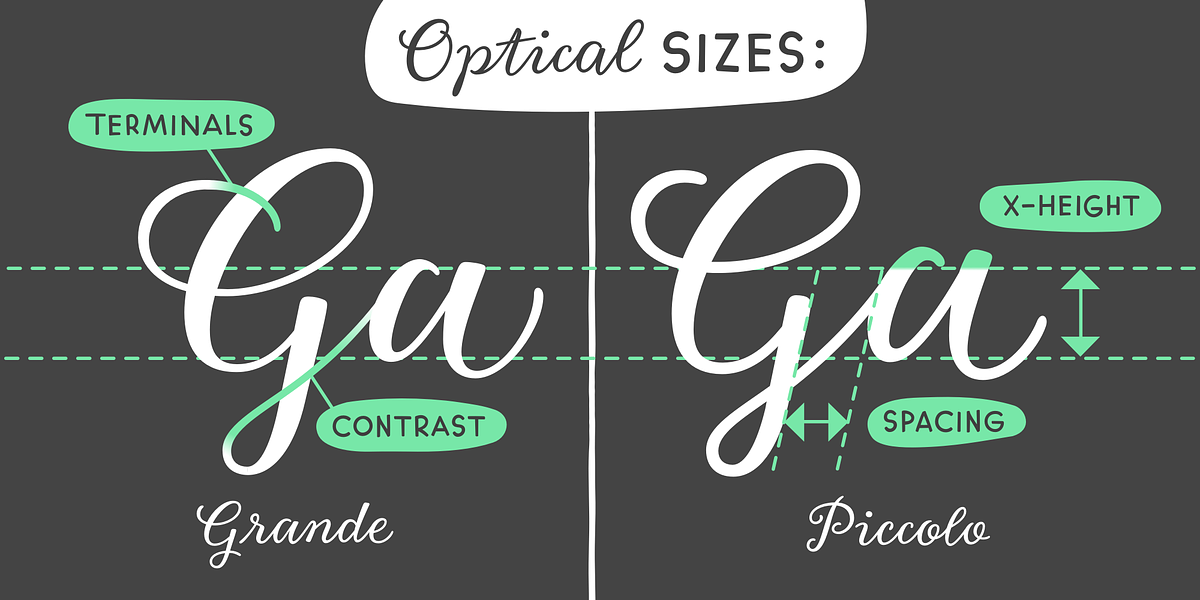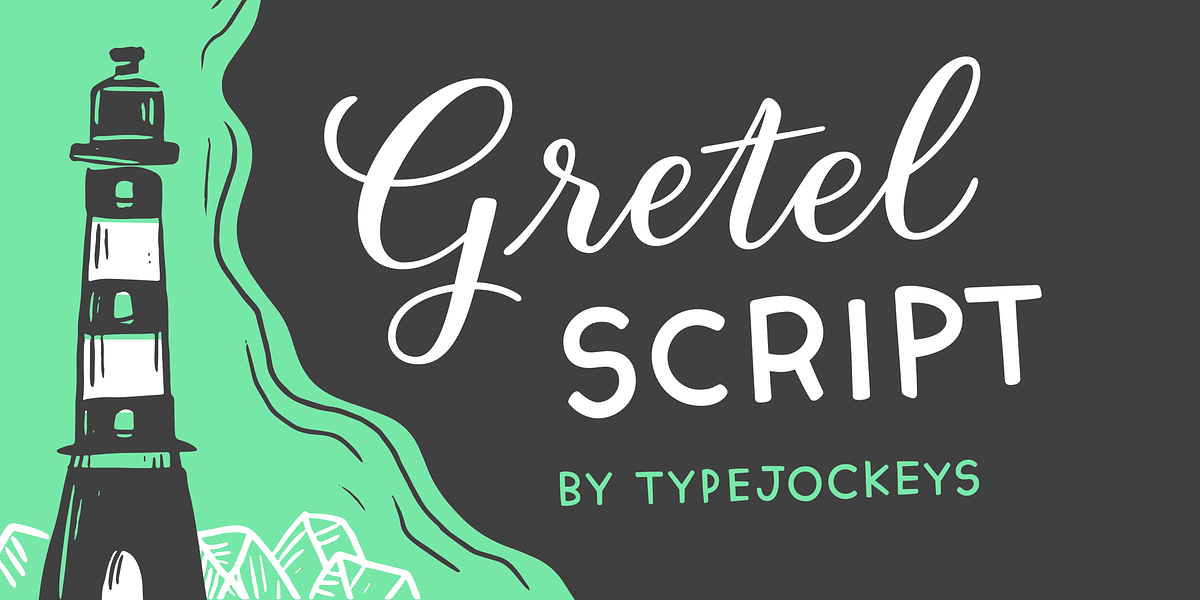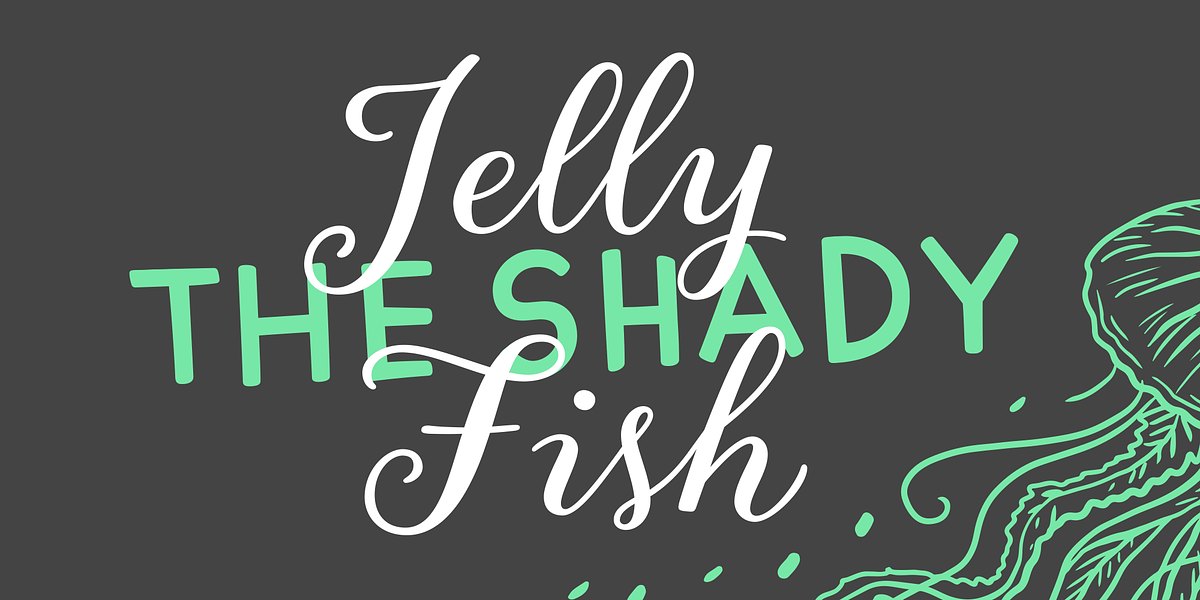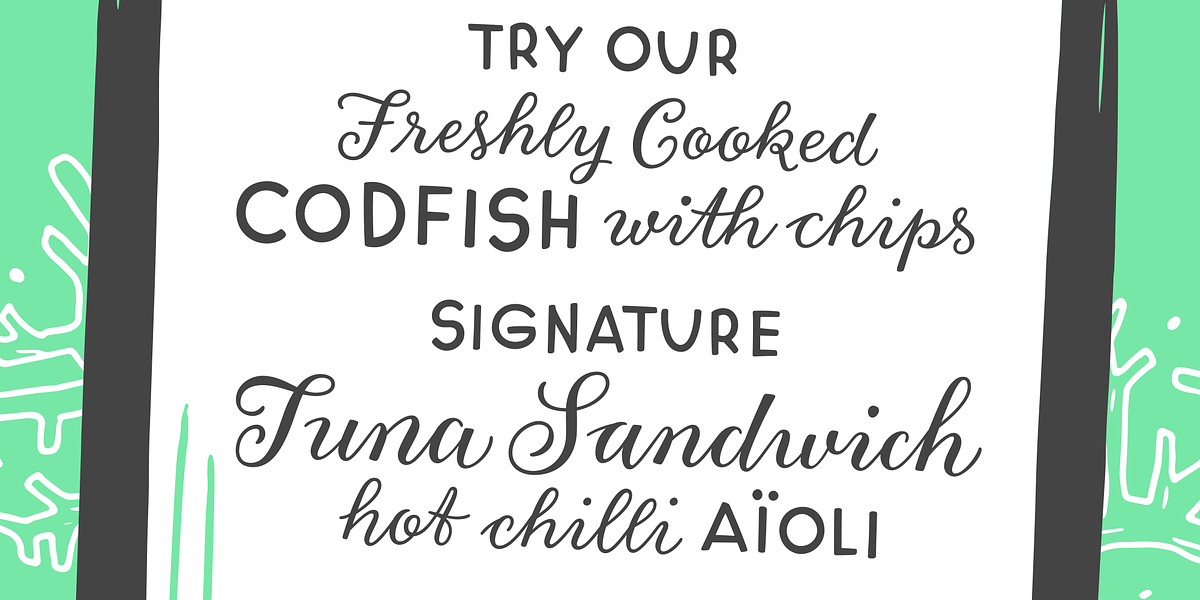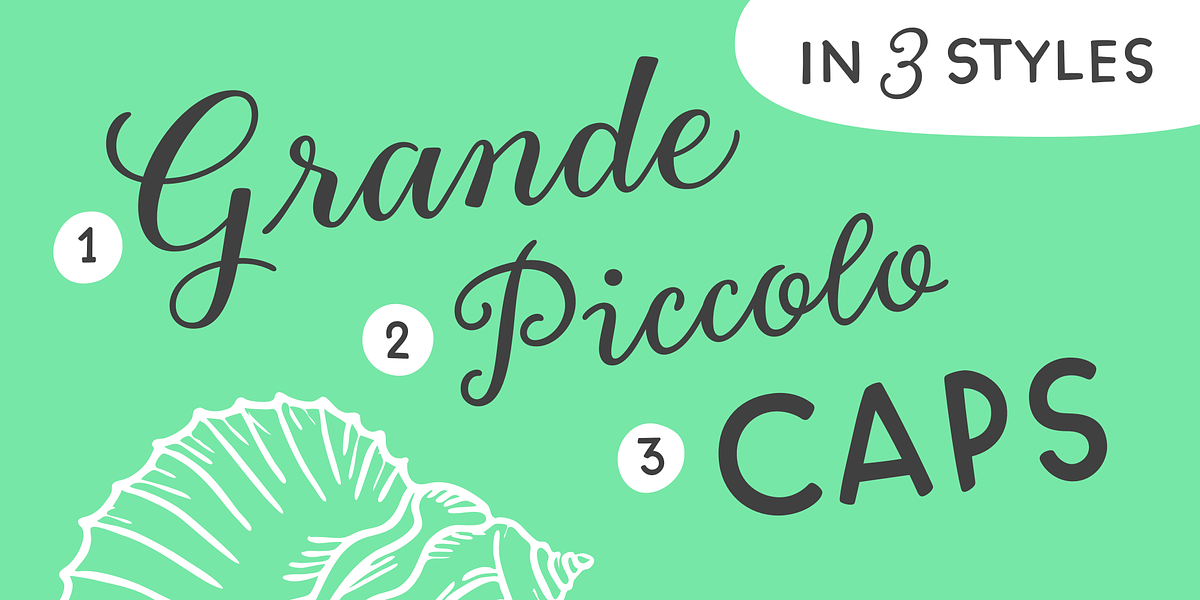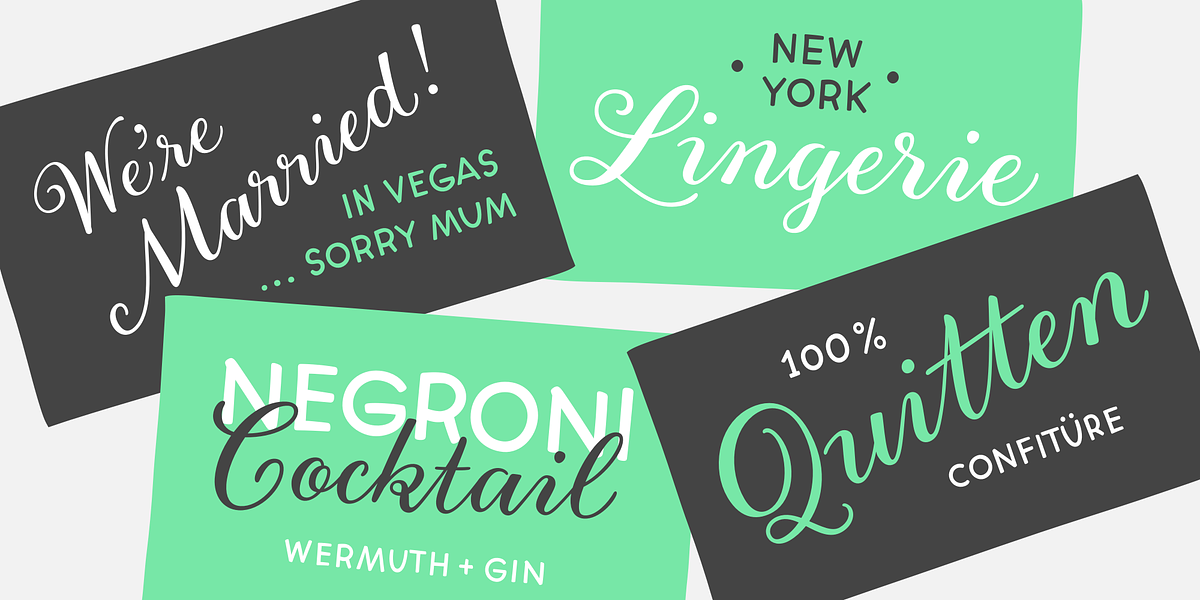
Gretel Script
This font is a formal script inspired by the calligraphy of Natascha Safarik. It features rounded edges and an all-caps design, making it suitable for elegant projects like wedding invitations, branding materials, or logos. The fact that it has optical sizes means it will look great at any size.